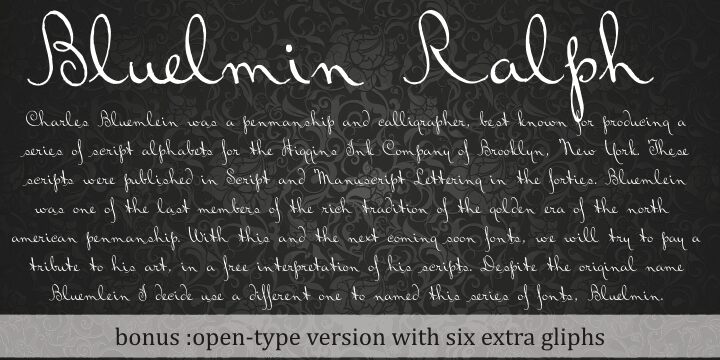
Bluelmin Ralph by Paulo W is a free calligraphic script with tall, looping strokes and a remarkably light touch. Its narrow letters lean into generous curls and extended joins, giving the writing an airy, slightly eccentric signature style.
Boutique fashion and independent music are natural markets for its intimate manner, especially in beauty branding, invitations, and album covers. The fine line has an expressive, unpolished movement. Those oversized loops can also become a recurring ribbon-like motif across packaging, linking the lettering directly to decorative borders and flourishes.
Intellecta Design conducts research and develops fonts based on historical forms.
Bluelmin Ralph is based on the scripts of Charles Bluemlein, a penman and calligrapher best known for producing a series of script alphabets for the Higgins Ink Company of Brooklyn, New York. These scripts were published in Script and Manuscript Lettering in the 1940s.
Bluemlein was one of the last members of the North American penmanship tradition of the golden era. This font and its companion fonts form a series based on a free interpretation of his scripts. The series uses the name Bluelmin rather than Bluemlein.
The OpenType version includes six additional glyphs accessible through the glyph palette or the Contextual Alternate OpenType feature. The Special Set 01 feature provides alternative designs for the Q, A, and Z glyphs.